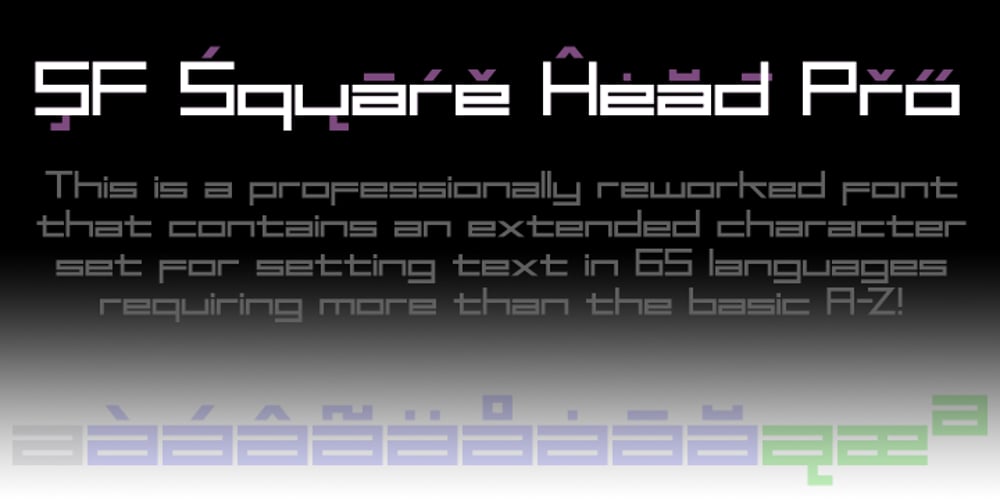
SF Square Head Pro Font Family was designed by Roger S. Nelsson, Derek Vogelpohl and published by CheapProFonts. SF Square Head Pro contains 1 styles and family package options. A completely square typeface. And wide. It is all futuristic and fast. I have redesigned the uppercase D (which was identical to the O), V and Y – and also a couple of the lowercase letters: a narrower r, a more identifiable t and f and weight corrections to the v, x and z. This font only had a very basic ASCII character set, so I have created a large amount of glyphs, and expanded it with the usual multilingual support. The future is now. ALL fonts from CheapProFonts have very extensive language support: They contain some unusual diacritic letters (some of which are contained in the Latin Extended-B Unicode block) supporting: Cornish, Filipino (Tagalog), Guarani, Luxembourgian, Malagasy, Romanian, Ulithian and Welsh. They also contain all glyphs in the Latin Extended-A Unicode block (which among others cover the Central European and Baltic areas) supporting: Afrikaans, Belarusian (Lacinka), Bosnian, Catalan, Chichewa, Croatian, Czech, Dutch, Esperanto, Greenlandic, Hungarian, Kashubian, Kurdish (Kurmanji), Latvian, Lithuanian, Maltese, Maori, Polish, Saami (Inari), Saami (North), Serbian (latin), Slovak(ian), Slovene, Sorbian (Lower), Sorbian (Upper), Turkish and Turkmen. And they of course contain all the usual “Western” glyphs supporting: Albanian, Basque, Breton, Chamorro, Danish, Estonian, Faroese, Finnish, French, Frisian, Galican, German, Icelandic, Indonesian, Irish (Gaelic), Italian, Northern Sotho, Norwegian, Occitan, Portuguese, Rhaeto-Romance, Sami (Lule), Sami (South), Scots (Gaelic), Spanish, Swedish, Tswana, Walloon and Yapese.